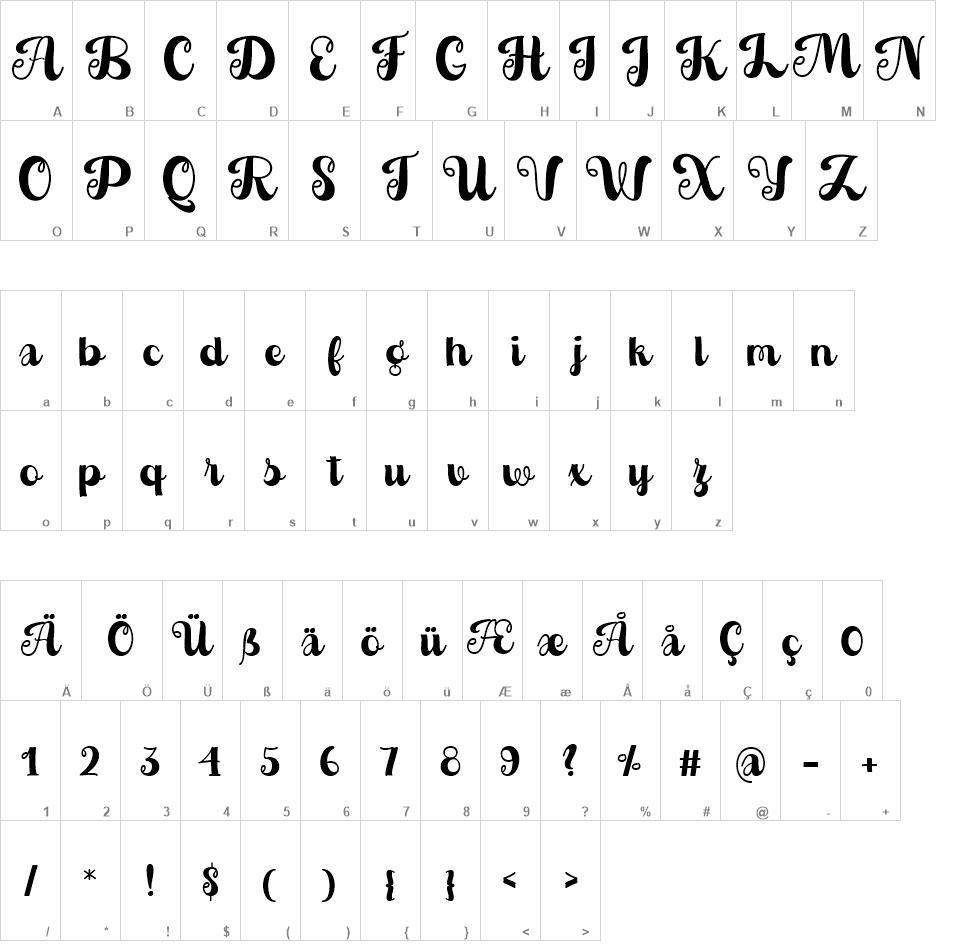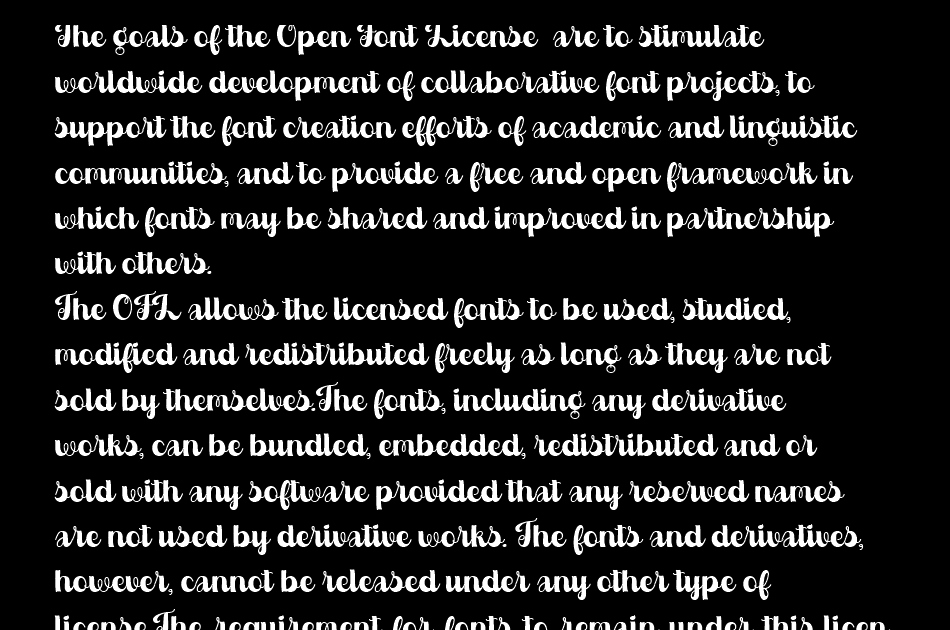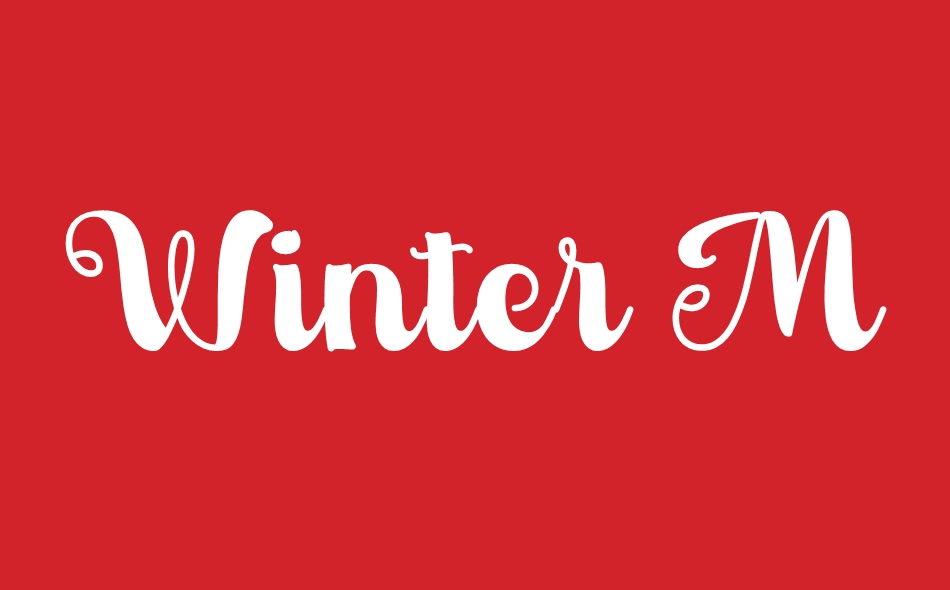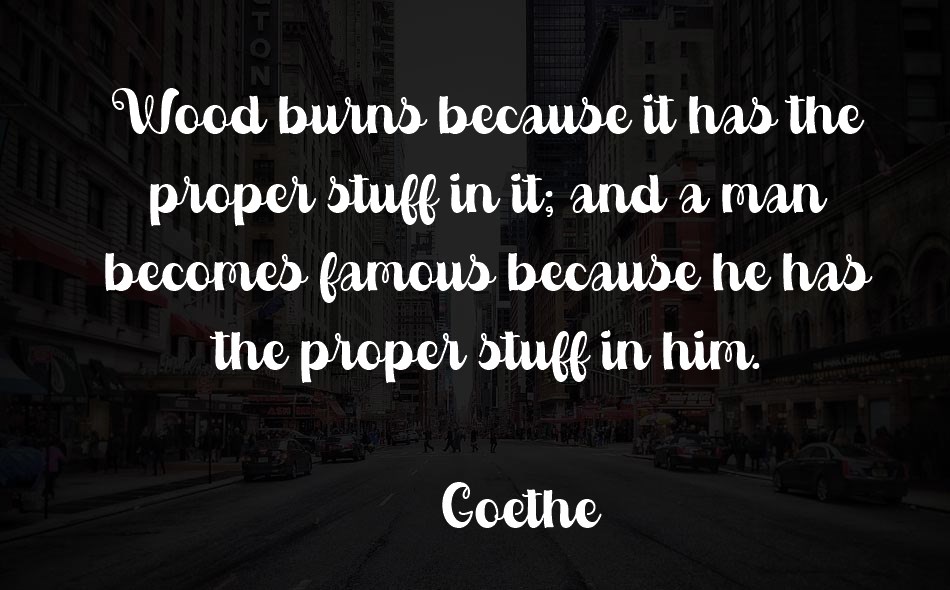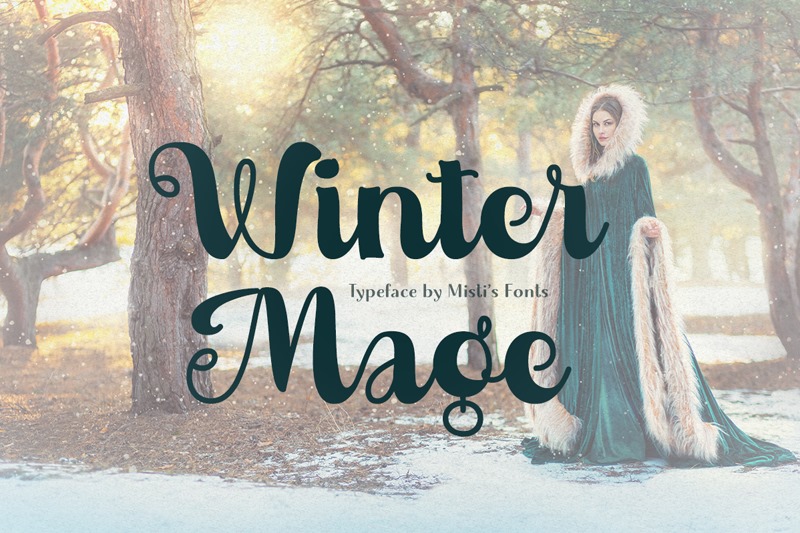
Winter Mage font
Winter Mage is a stunning calligraphy typeface that will add a unique and elegant charm to your designs. Use it to create lovely Valentines Day greeting cards, beautiful invitations to a special event, Etsy shop logos, sublimation projects and so much more!